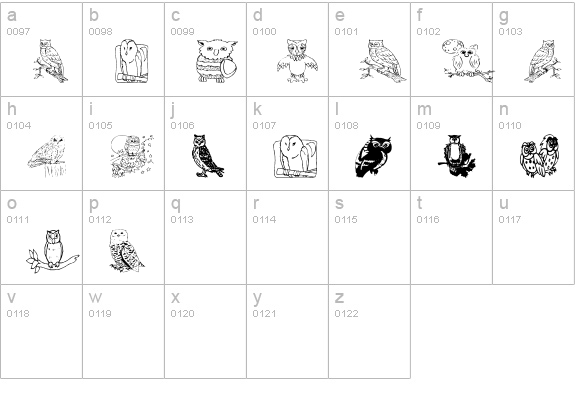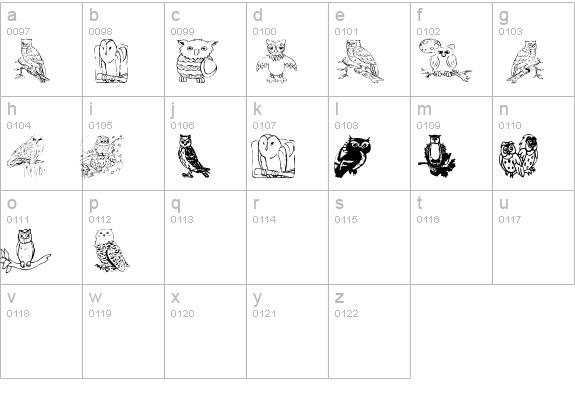
AEZ Owls for Traci Font Details
AEZ Owls for Traci is a charming and whimsical font that is perfect for adding character and personality to your designs. With its playful and unique owl-inspired detailing, this font is sure to stand out and make a statement. Whether you're working on a children's book, greeting cards, or any other creative project, AEZ Owls for Traci is the perfect choice to bring a touch of fun and creativity. What's even better is that AEZ Owls for Traci is available for free download at FontsMarket.com. So, you can easily add this delightful font to your collection without any cost. Don't miss out on the opportunity to enhance your designs with the adorable charm of AEZ Owls for Traci. Download it now and let your creativity soar!